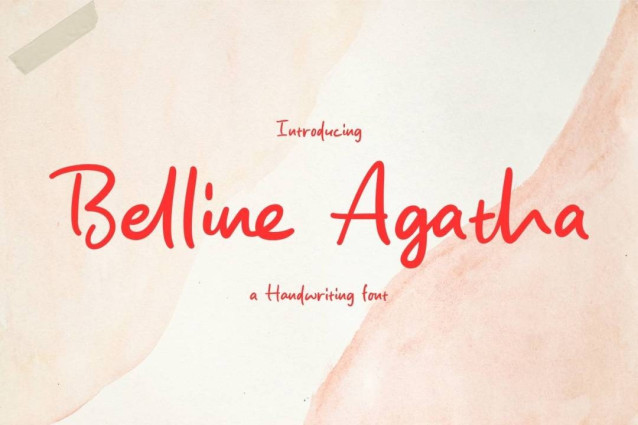
Belline Agatha Font
Belline Agatha Font is a simple and friendly handwritten font. Its natural and unique style makes it incredibly fitting to a large pool of designs. The only limit is your imagination!